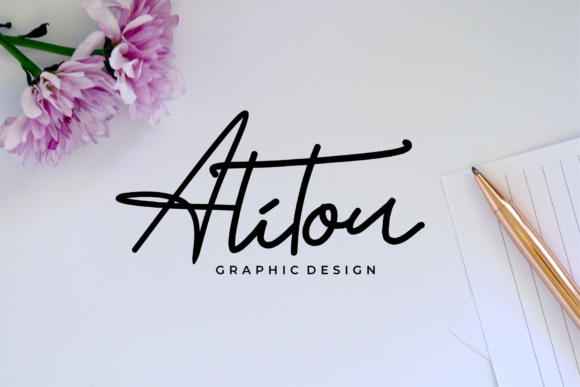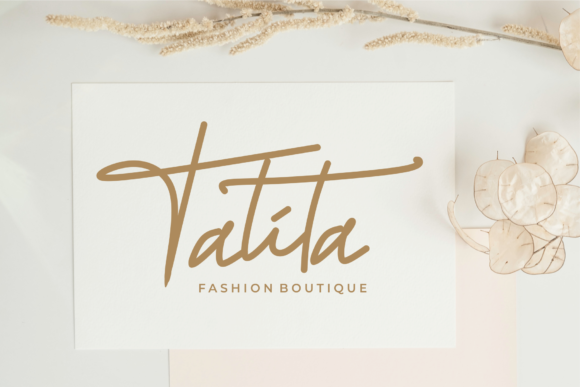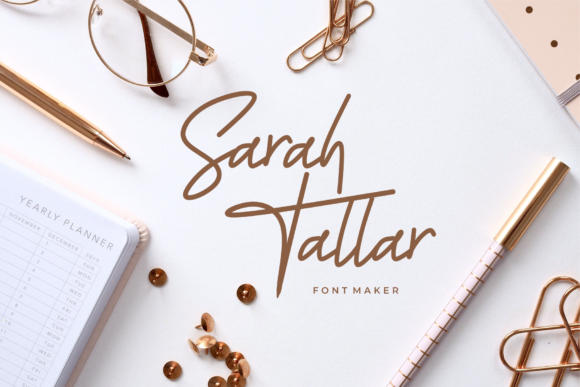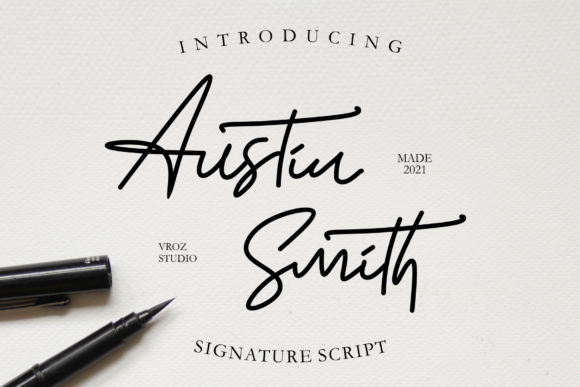
Introduction to Austin Smith Font
Austin Smith is a thin and flowing handwritten font.
Why Choose Austin Smith Font?
Austin Smith Font offers exceptional quality and versatility, making it a valuable addition to your design toolkit. Whether you’re creating for personal projects or commercial use, Austin Smith Font delivers professional results.